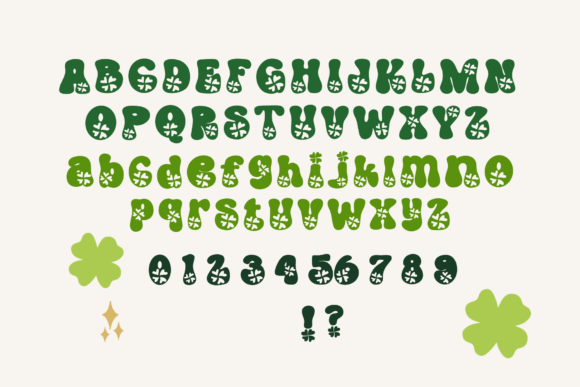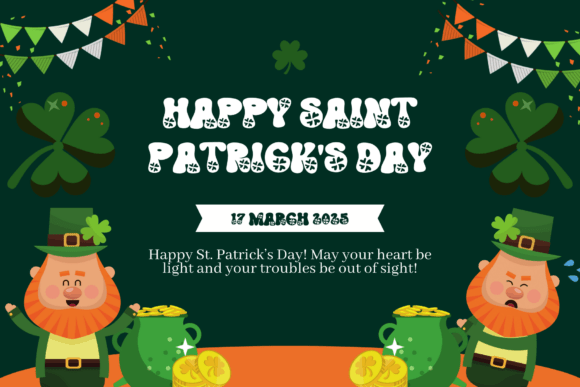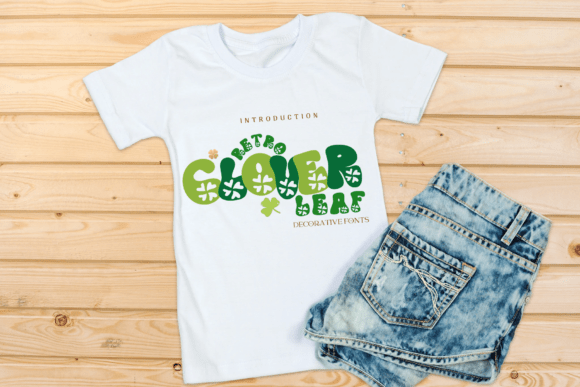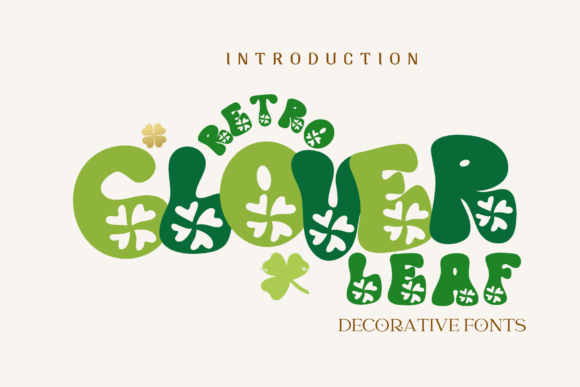
Introduction to Retro Clover Leaf Font
Retro clover leaf is a Decorative font.
You can use it for taking notes, writing a diary, or making greeting cards However, you can still use it for other designs, such as banners, content, mugs, cards, shirts, stationery, social media posts, and more.
Retro Clover Leaf Font offers exceptional quality and versatility, making it a valuable addition to your design toolkit. Whether you’re creating for personal projects or commercial use, Retro Clover Leaf Font delivers professional results.